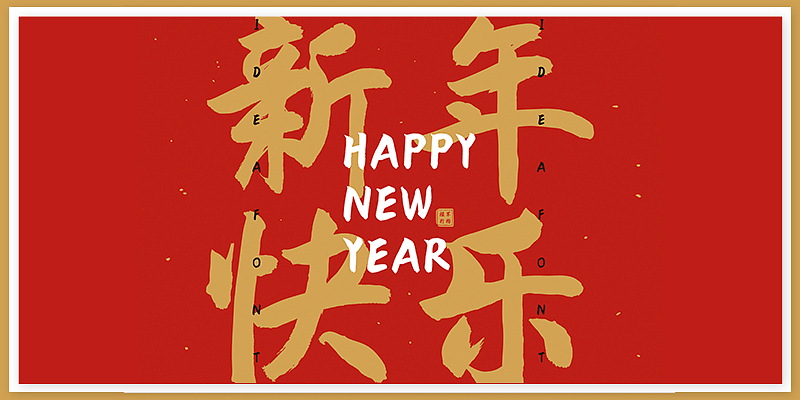
HelloFont ID Lu Jun Xing Kai Font Free Download is a sophisticated and elegant Chinese-inspired typeface that blends traditional calligraphic elements with modern design principles. Featuring smooth brush strokes and well-proportioned characters, this font is ideal for projects requiring a blend of artistry and readability, such as branding, invitations, editorial design, and cultural event materials.
The HelloFont ID Lu Jun Xing Kai Font brings a refined and graceful aesthetic to your designs, making it perfect for high-end branding and luxurious projects. Its beautiful flow and balanced proportions ensure that it looks stunning in both large and small sizes, whether for digital or print applications.